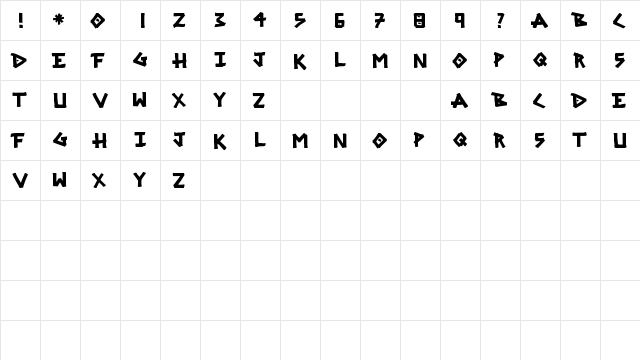
SRG MARKER Regular
Design Context for SRG MARKER Typeface
SRG MARKER is a composed and adaptable typeface that performs quietly and consistently across a wide range of design contexts.